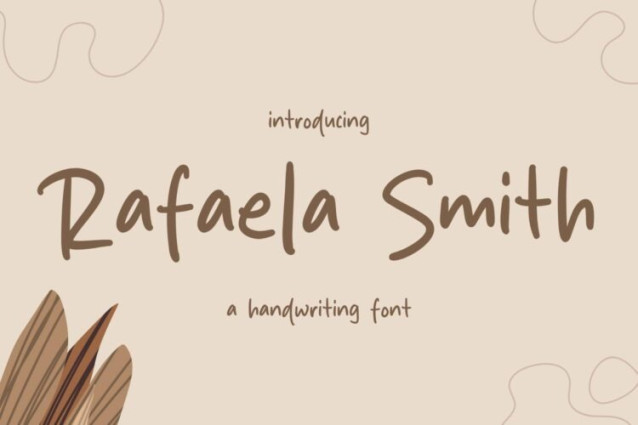
Rafaela Smith Font
Rafaela Smith Font is a simple and friendly handwritten font. Its natural and unique style makes it incredibly fitting to a large pool of designs. The only limit is your imagination!